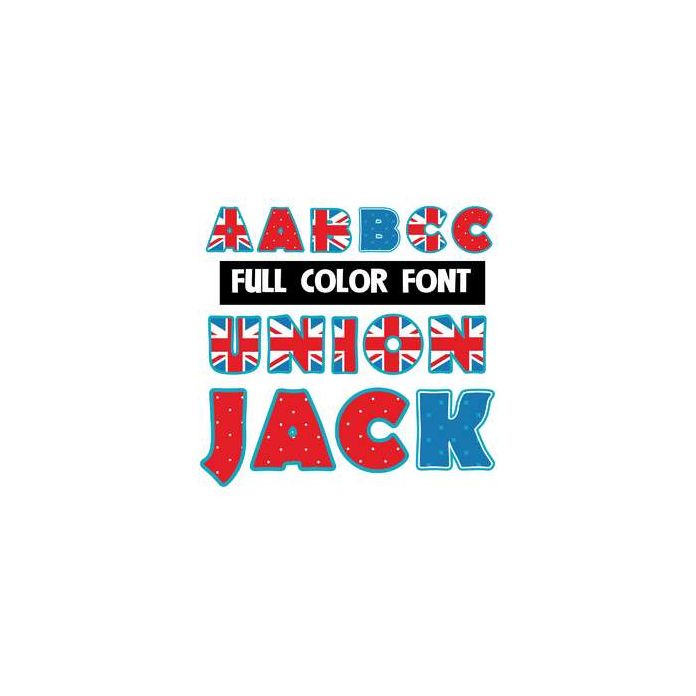
This full-color font features an uppercase made up of Union Jack flags and a lowercase of coordinating prints. This font works best for titles, displays, posters and more. Please note color fonts will show as black in non compatible programs. This font type is compatible with Silhouette Studio.